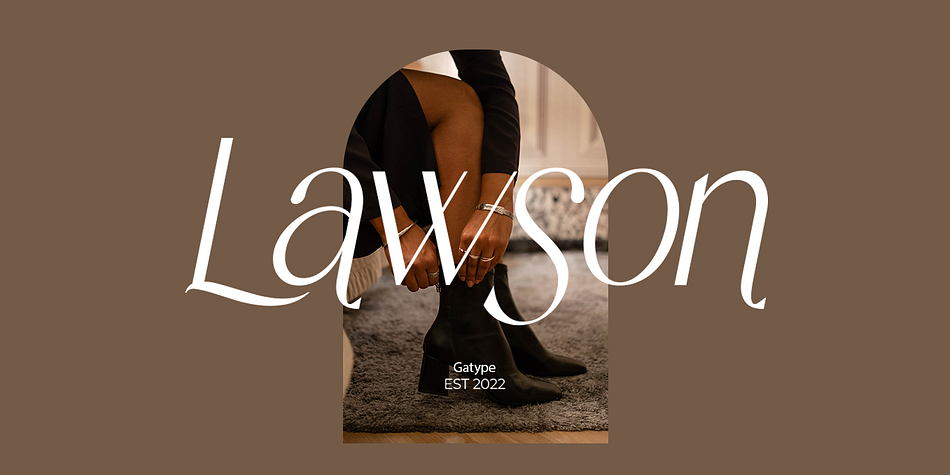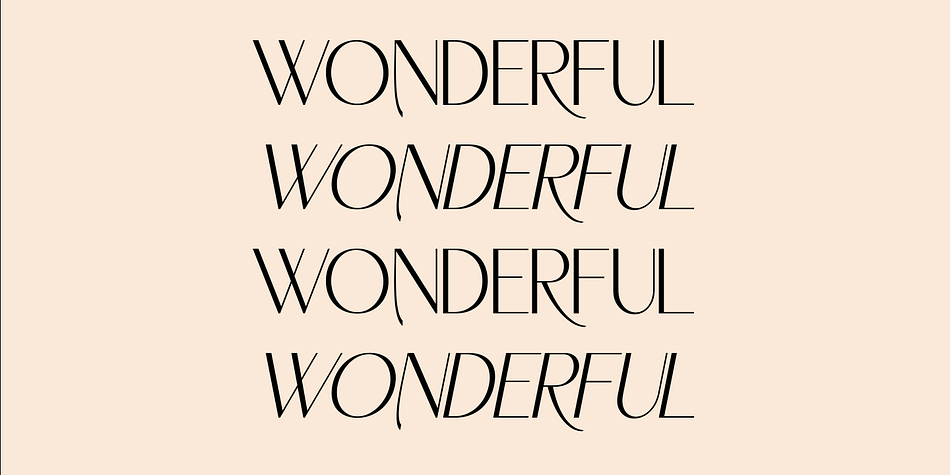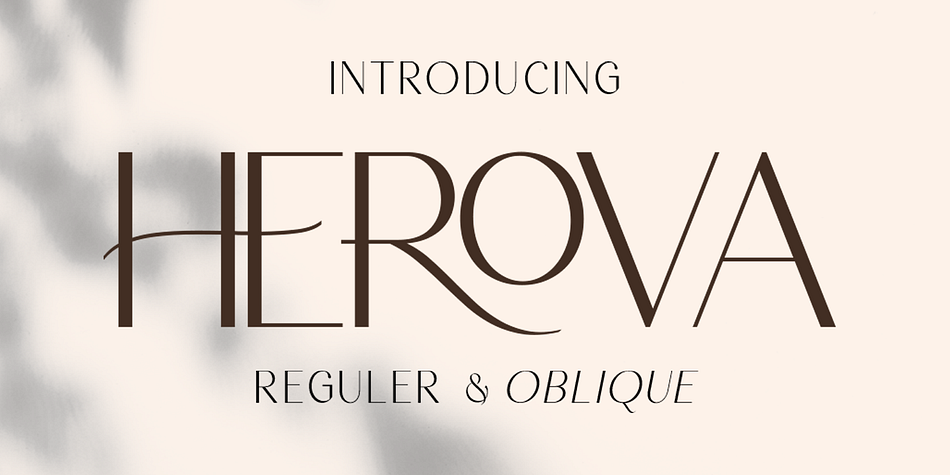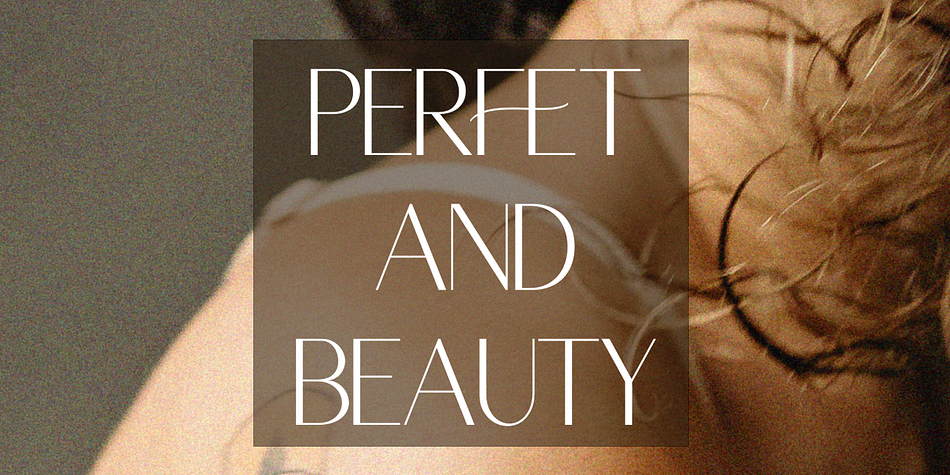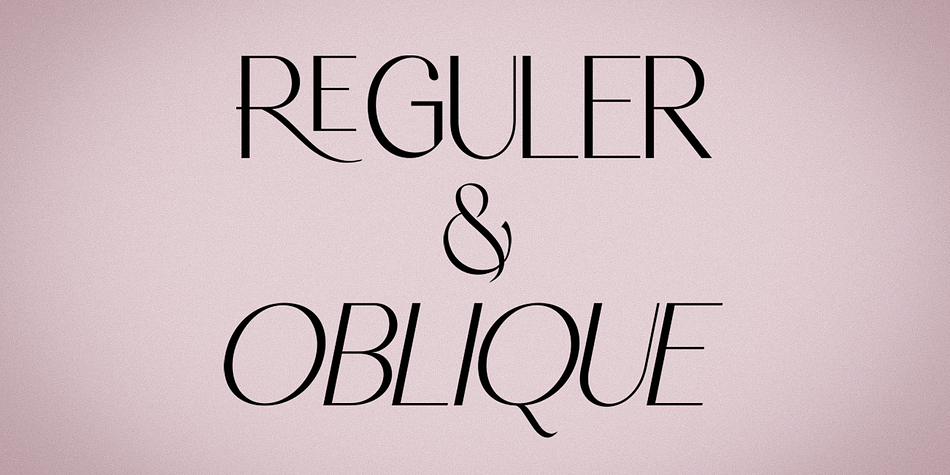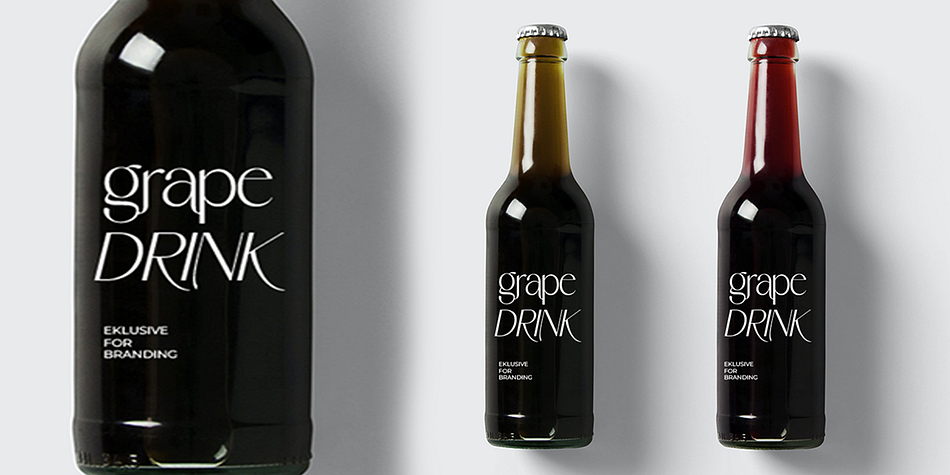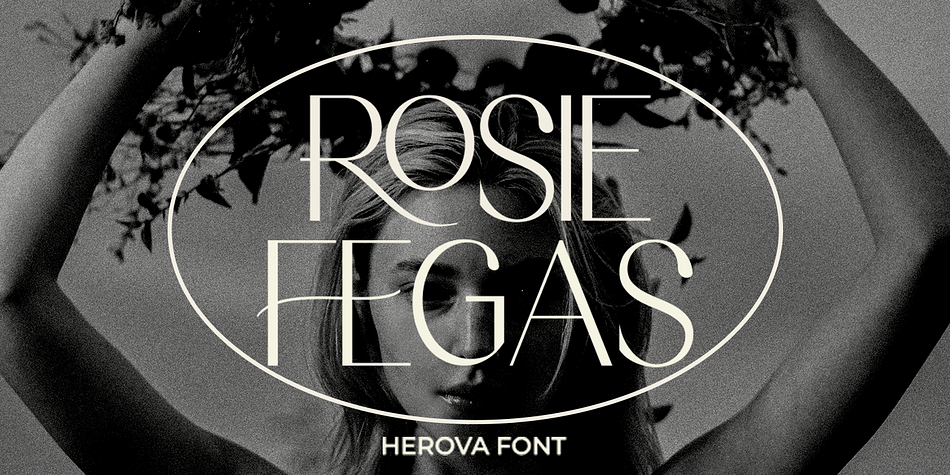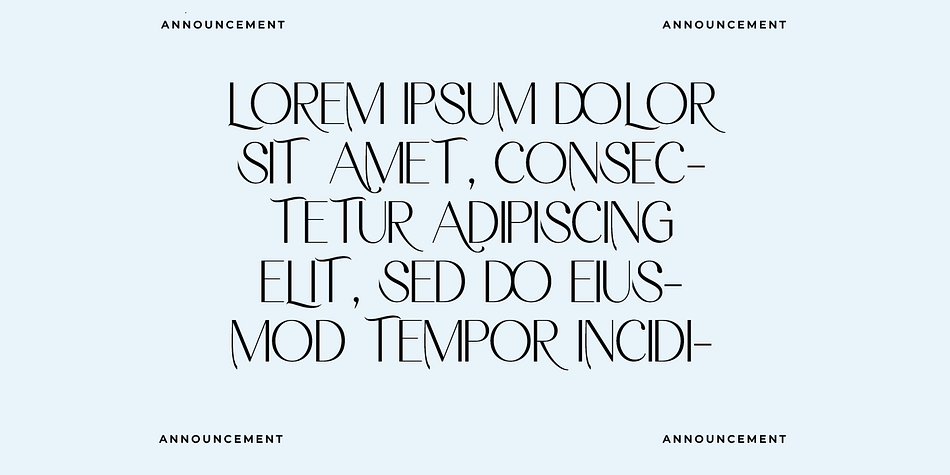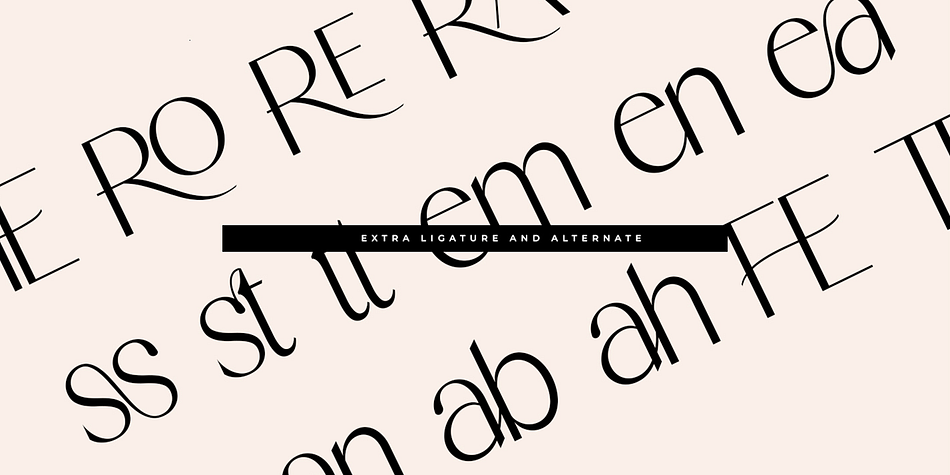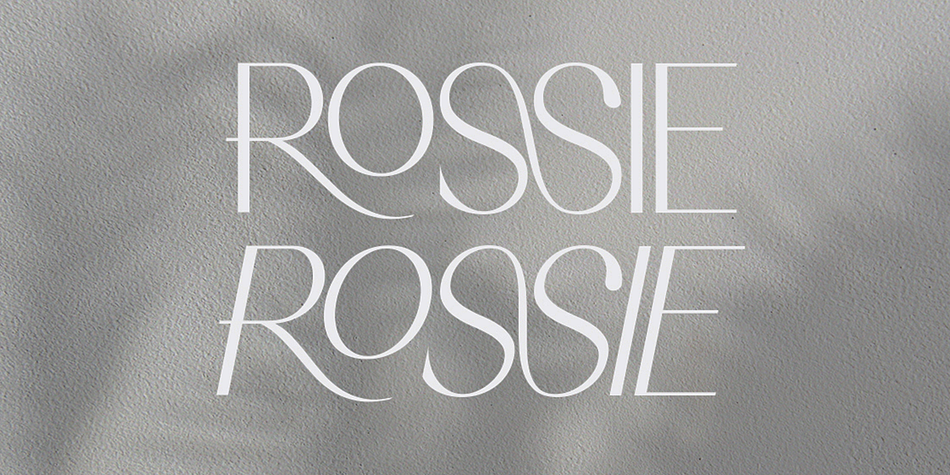
HEROVA
HEROVA is a display sans font family. This typeface has two styles and was published by Gatype.
HEROVA is a modern display font with a unique font. This customizable font will look great on a variety of design ideas such as, inding styles, high contrast and light weight fonts perfect for feminine logo signs, fashion & editorial design heads, branding projects, Clothing Branding, packaging, magazine titles, advertisements, T -shirts, postcards, valentines, posters, invitations, weddings, branding projects, social media posts, magazines, book covers and more. This will add a fun and friendly touch to any of your projects! This font is PUA encoded which means you can access all the glyphs and sweeps easily and more.